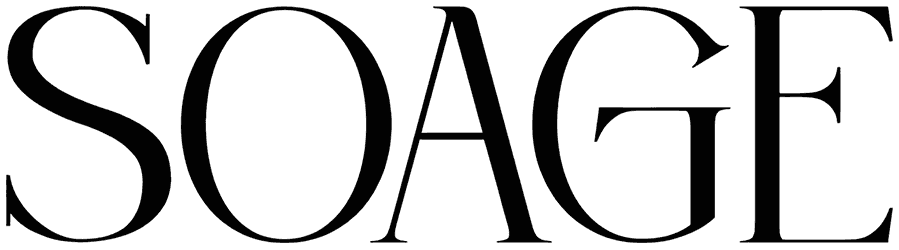
Soage Font
Let’s make your graphic projects more classic and formal by getting back to the roots and using a majestic luxury serif font like Soage. If creating a sense of respect, confidence, trustworthiness, and professionalism is what you really crave, then we strongly recommend you ignore the lack of numbers and include this all-caps typeface in web pages, presentations, invitations, gift cards, and diplomas.
Soage is modern serif font. Made for any professional project branding. It is the best for branding, printing, wedding and quotes. Every letter has a unique and beautiful touch.What’s included :